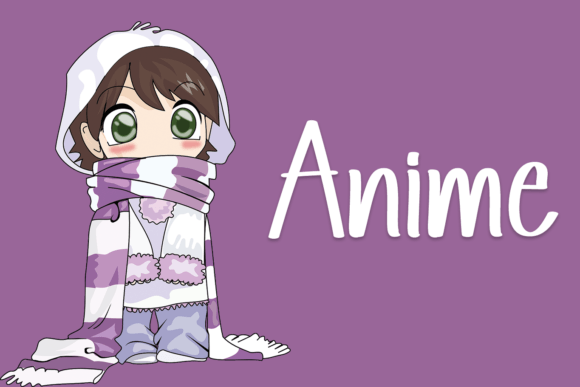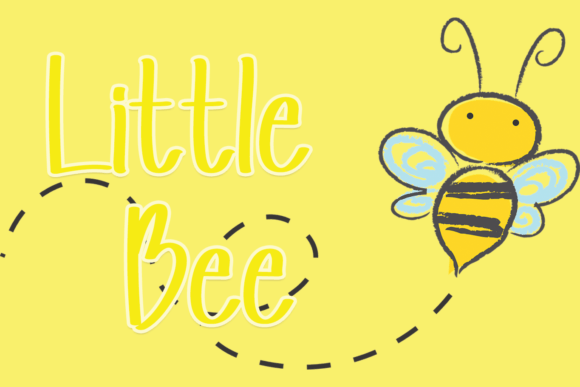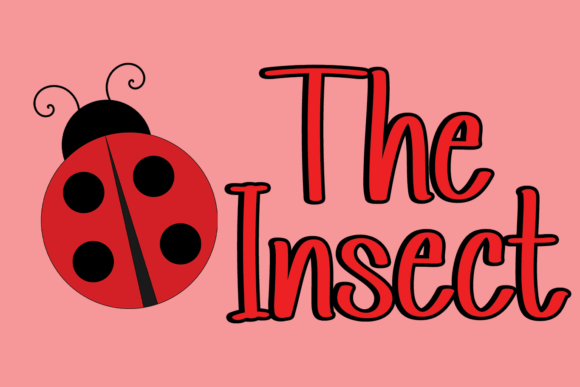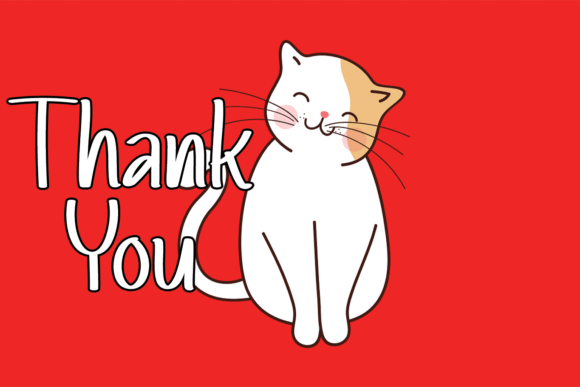
Bringing Personal Touch to Your Designs
For designers, finding the perfect font can be just as magical. That’s why we’re excited to share with you the charm of Kids Love Font – a delightful, handwritten font that brings a touch of authenticity to your chalkboard quotes, teaching materials, and more. With its playful, childlike charm, Kids Love Font is sure to add a personal feel to your designs, making them stand out from the crowd.
Kids Love Font Key Features
- Unique Characteristics: Kids Love Font features playful, rounded letterforms and whimsical flourishes, making it perfect for children’s books, educational materials, and family-friendly brands.
Kids Love Font Review
I recently had the chance to work with the Kids Love Font, and here’s my honest take on it.
- The font’s playful and whimsical nature is perfect for creating engaging designs for kids.
- The various character styles and decorations add a lot of personality to the font, making it a great choice for projects that require a lot of flair.
- The font is highly legible, even at smaller sizes, which is essential for designs that need to be easily readable.
- The font’s limited character set might make it difficult to use for longer texts or for projects that require a lot of customization.
- The font’s bold and decorative styles might be overwhelming for some designs, so it’s essential to use them sparingly.
Overall, the Kids Love Font is a great choice for projects that require a playful and whimsical touch. While it has some limitations, its unique character styles and high legibility make it a solid option for designers looking to add some personality to their designs.
To get the most out of “Kids Love Font”, try the following:
– Use it for titles and headings to add a playful touch.
– Pair it with bold colors and illustrations for a fun and engaging design.
– Experiment with different font sizes and styles to create visual interest.
“Kids Love Font” is commonly used for:
– Children’s books and educational materials.
– Party invitations and decorations.
– Branding and marketing materials for children’s products and services.
Alternatives to Kids Love Font for Designers